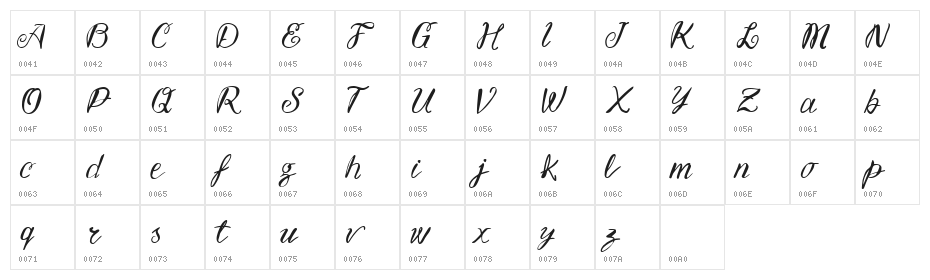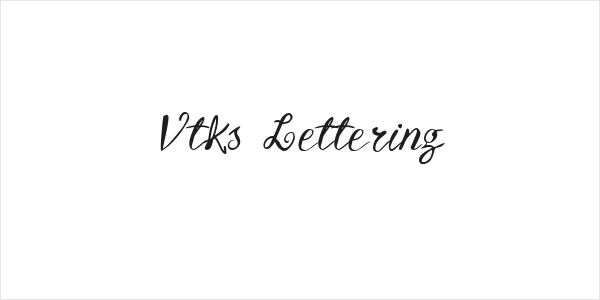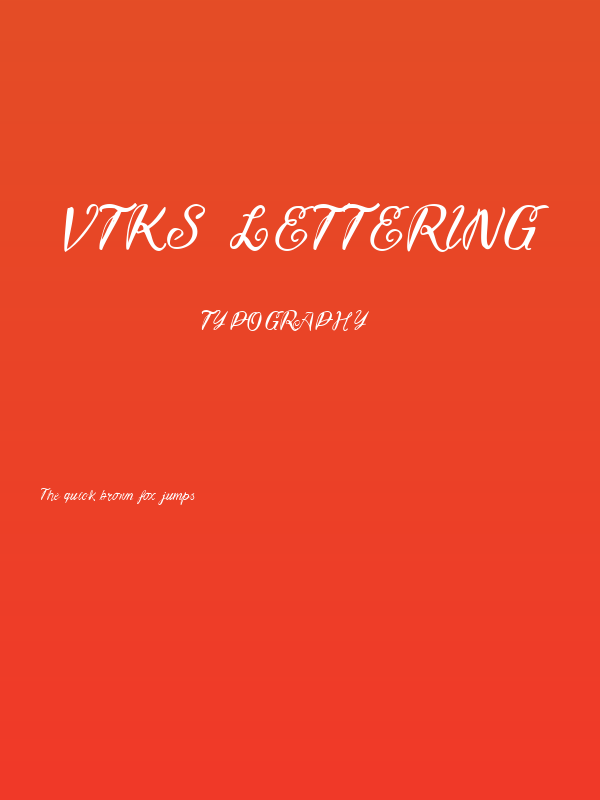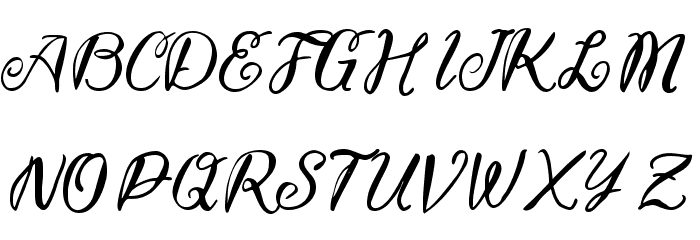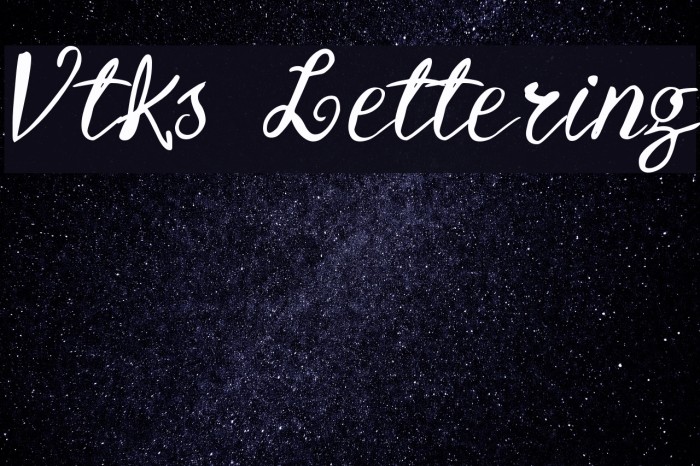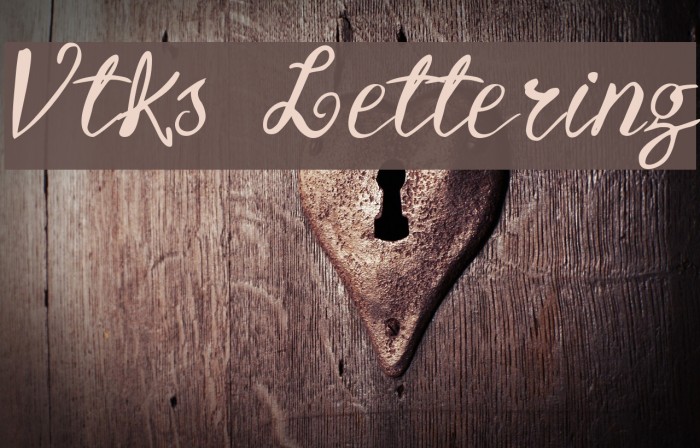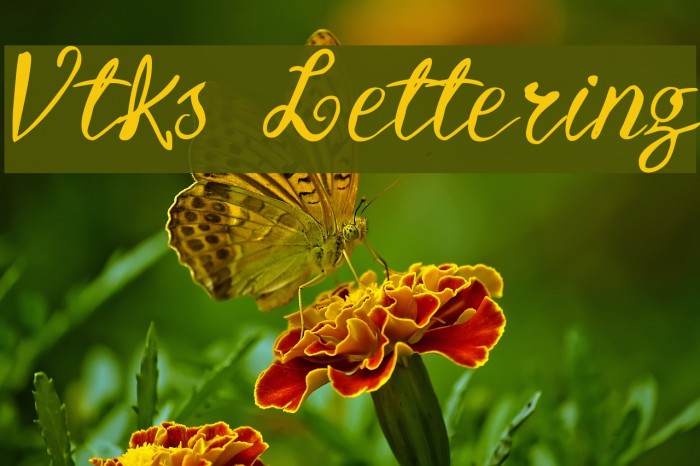
Vtks Lettering Font
Vtks Lettering Description
This font features an elegant and flowing script style, characterized by its cursive, handwritten appearance. The letters are interconnected, creating a seamless and fluid look. The strokes are varied, with some letters having thicker downstrokes and thinner upstrokes, adding a dynamic and lively feel. The uppercase letters are ornate, with flourishes that enhance their decorative appeal, while the lowercase letters maintain a consistent style that complements the uppercase. The numbers and special characters follow the same script style, ensuring uniformity across all glyphs. This font exudes a sense of sophistication and artistic flair, making it suitable for creative and expressive design projects.
| Proposed Projects | Ideal for wedding invitations, greeting cards, branding, and artistic projects that require a touch of elegance and sophistication. |